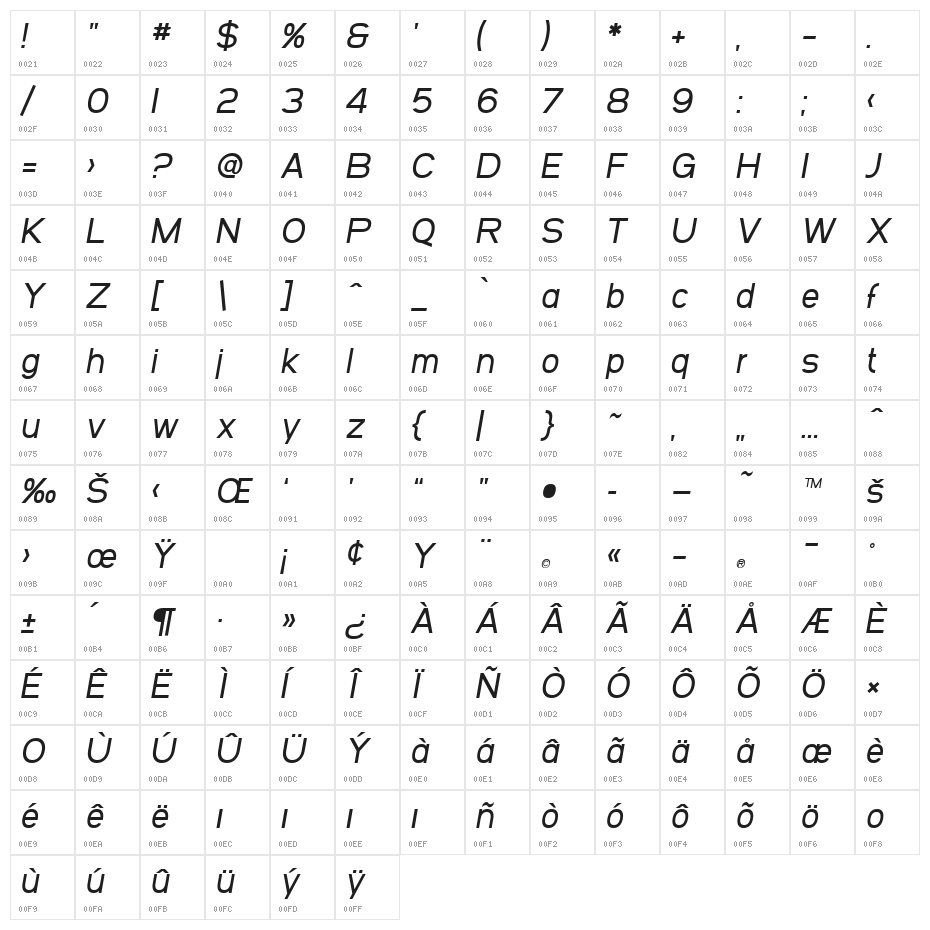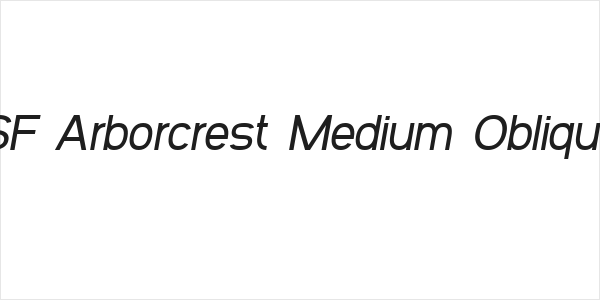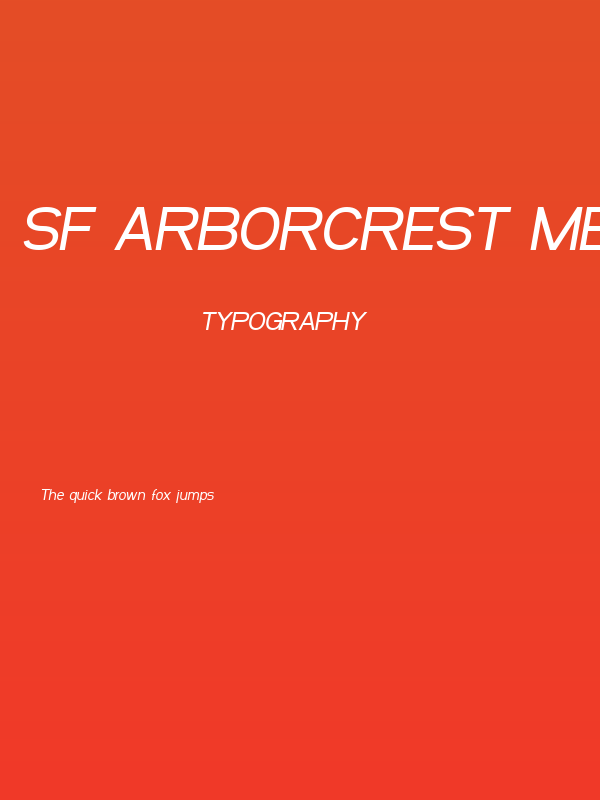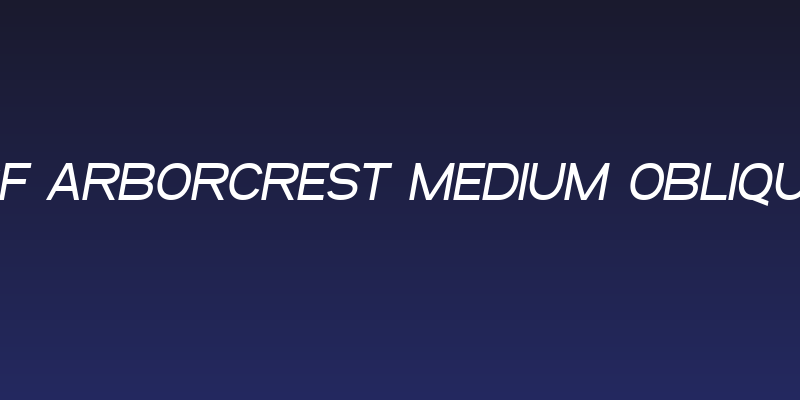
SF Arborcrest Medium Oblique Font
SF Arborcrest Medium Oblique Description
This font features a sleek and modern design with a slight oblique slant, giving it a dynamic and forward-moving appearance. The characters are clean and sans-serif, providing a contemporary look that is both professional and approachable. The medium weight ensures readability while maintaining a stylish edge. The font's structure is well-balanced, with consistent stroke widths that offer a harmonious visual flow. Its versatility makes it suitable for various applications, from digital interfaces to print media, where a modern and sophisticated touch is desired.
| Proposed Projects | Ideal for branding, advertising, digital interfaces, and editorial design. |